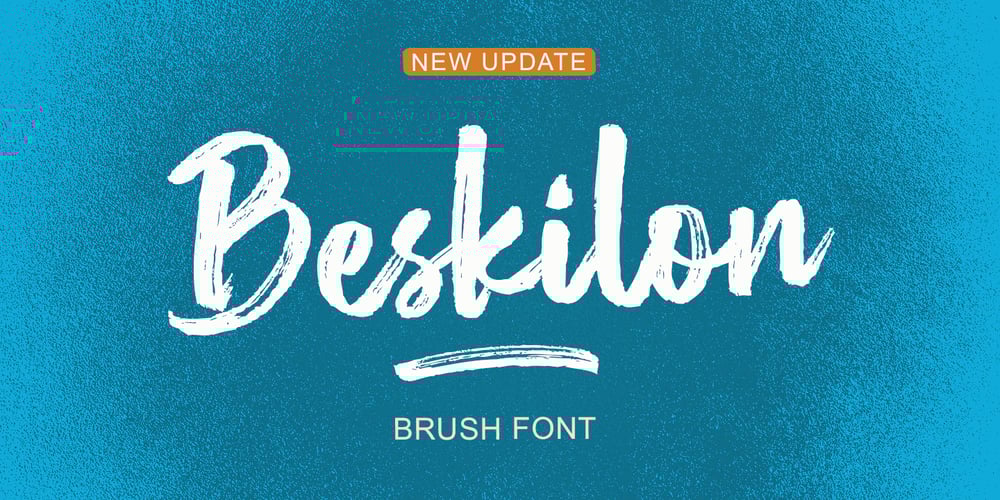
Beskilon Brush
Beskilon Brush font
Beskilon Brush Font Family was designed by Yur Lis and published by Stripes Studio. Beskilon Brush contains 2 styles and family package options. Beskilon Brush is a super casual hand brushed script with detailed brush stroke texture, and a quirky, Can be used for various purposes. such as the title, signature, letterhead, signage, labels, newsletters, posters, logos, correspondence, wedding invitations, badges, etc.